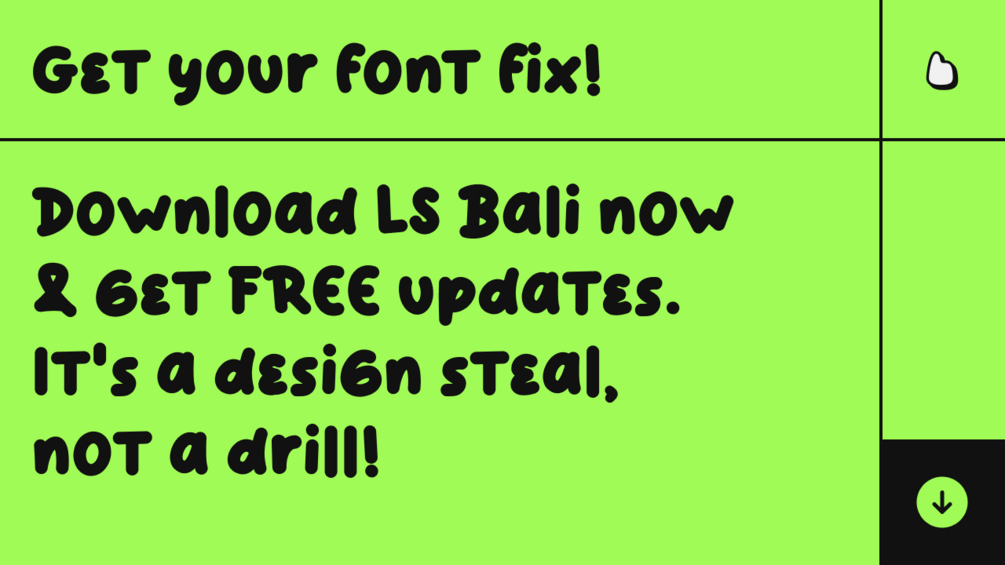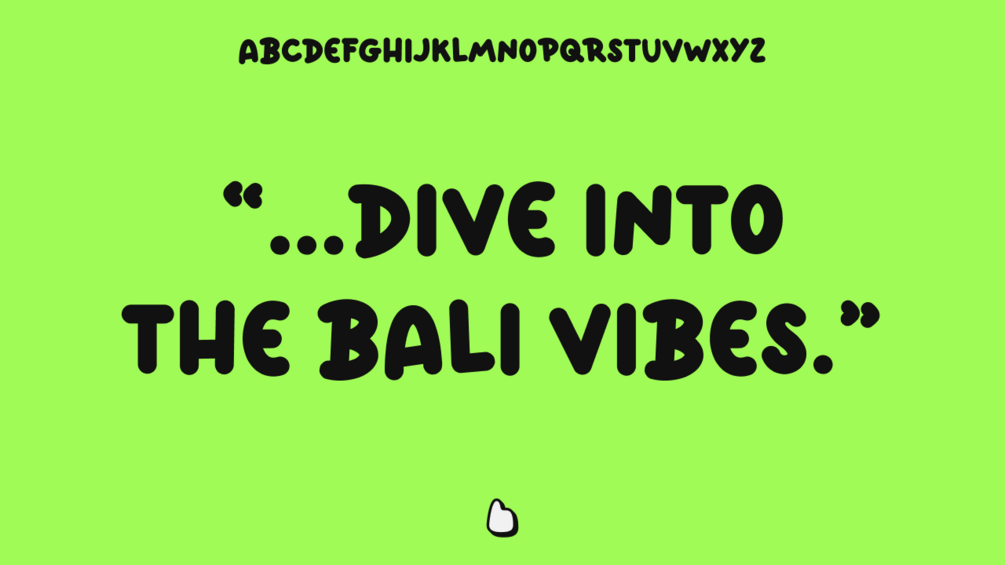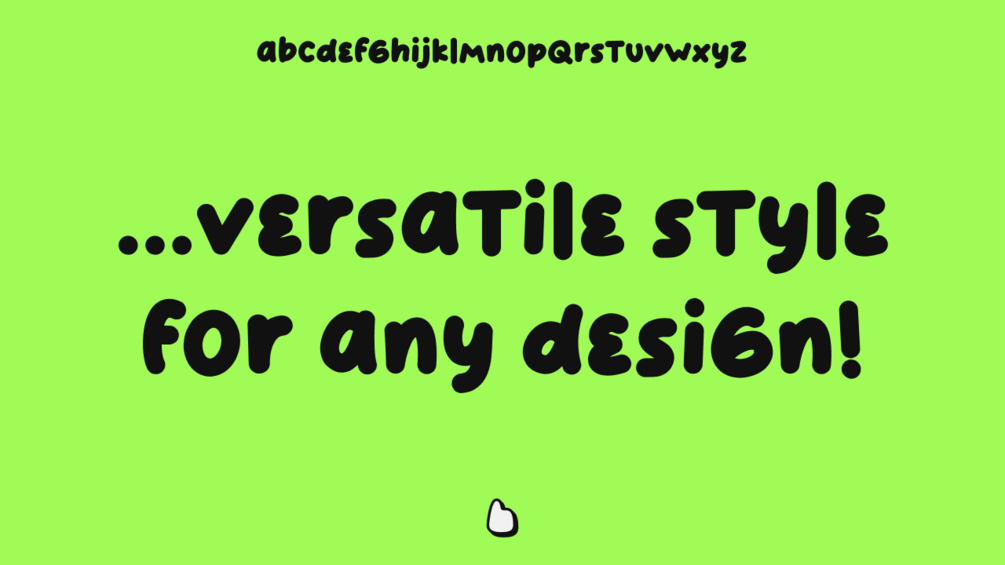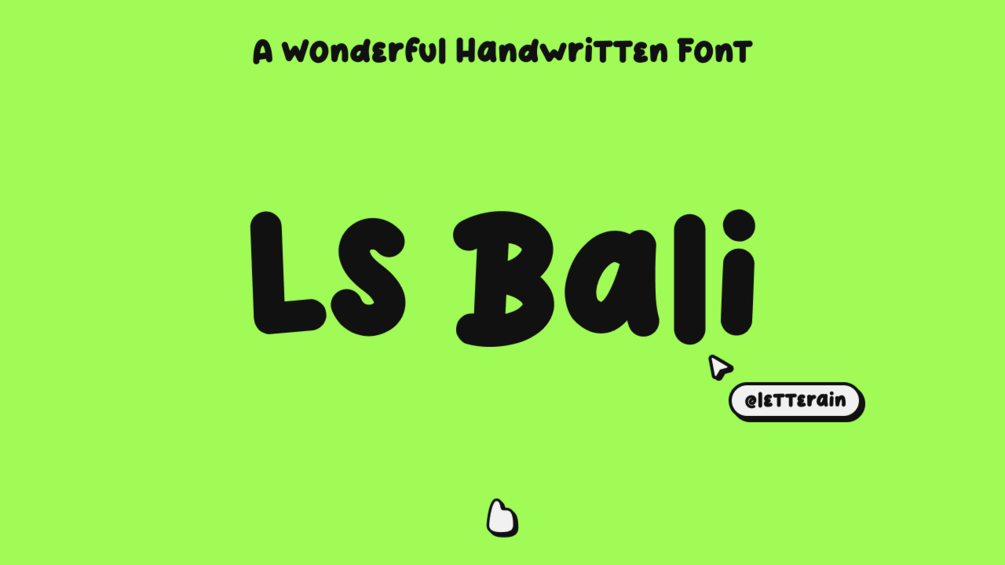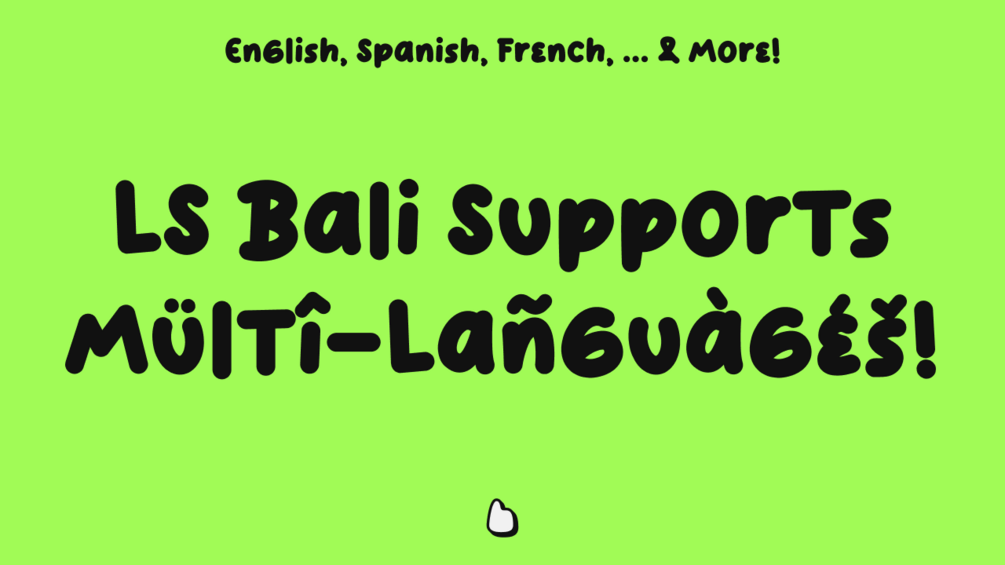
LS Bali - A Wonderful Handwritten Font (003/365)
🙌 Hey, Bali's callin', can't you hear? Even the map's a wip, my dear!
🤙 Grab this font and let's take flight, paint paradise with colors so bright!